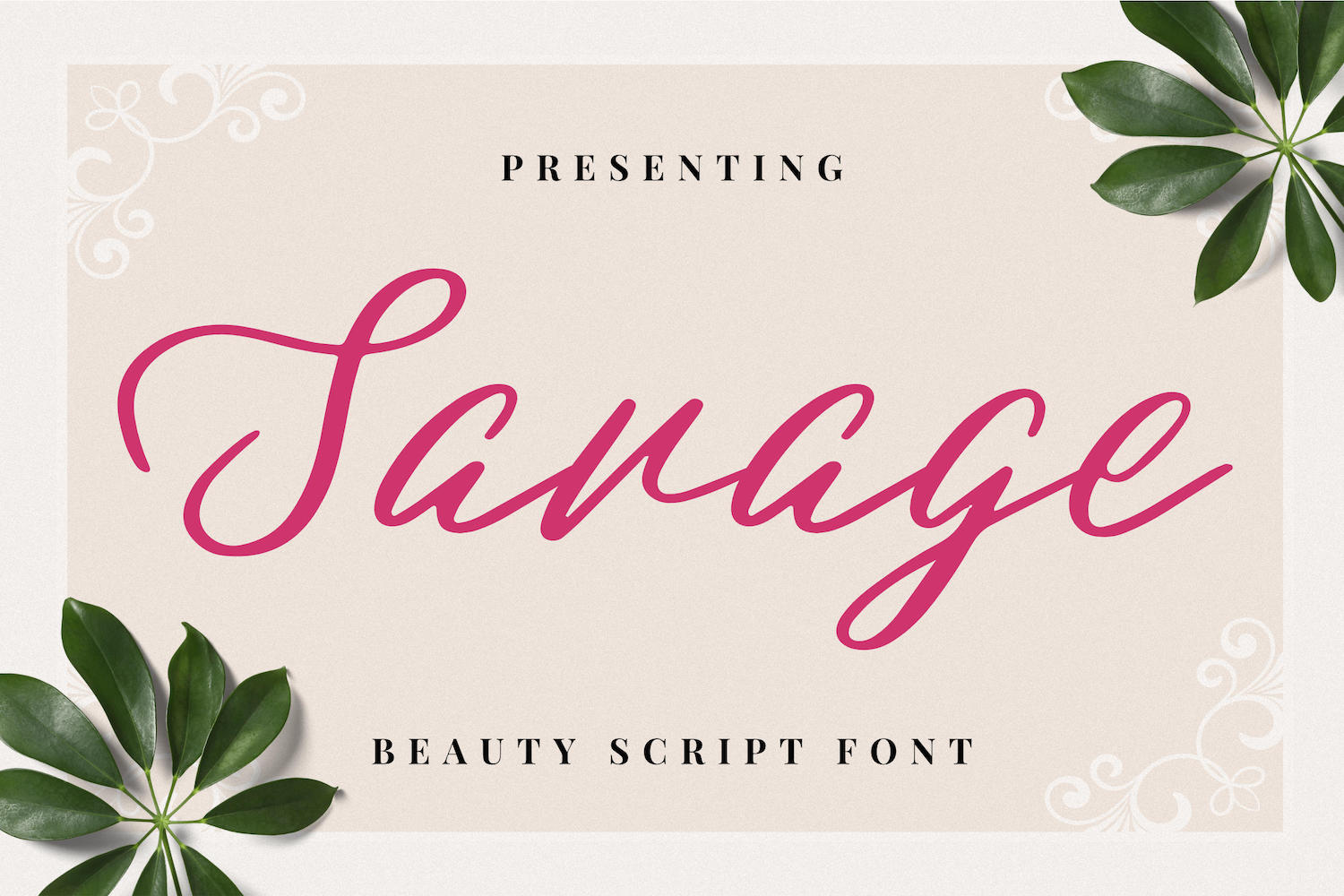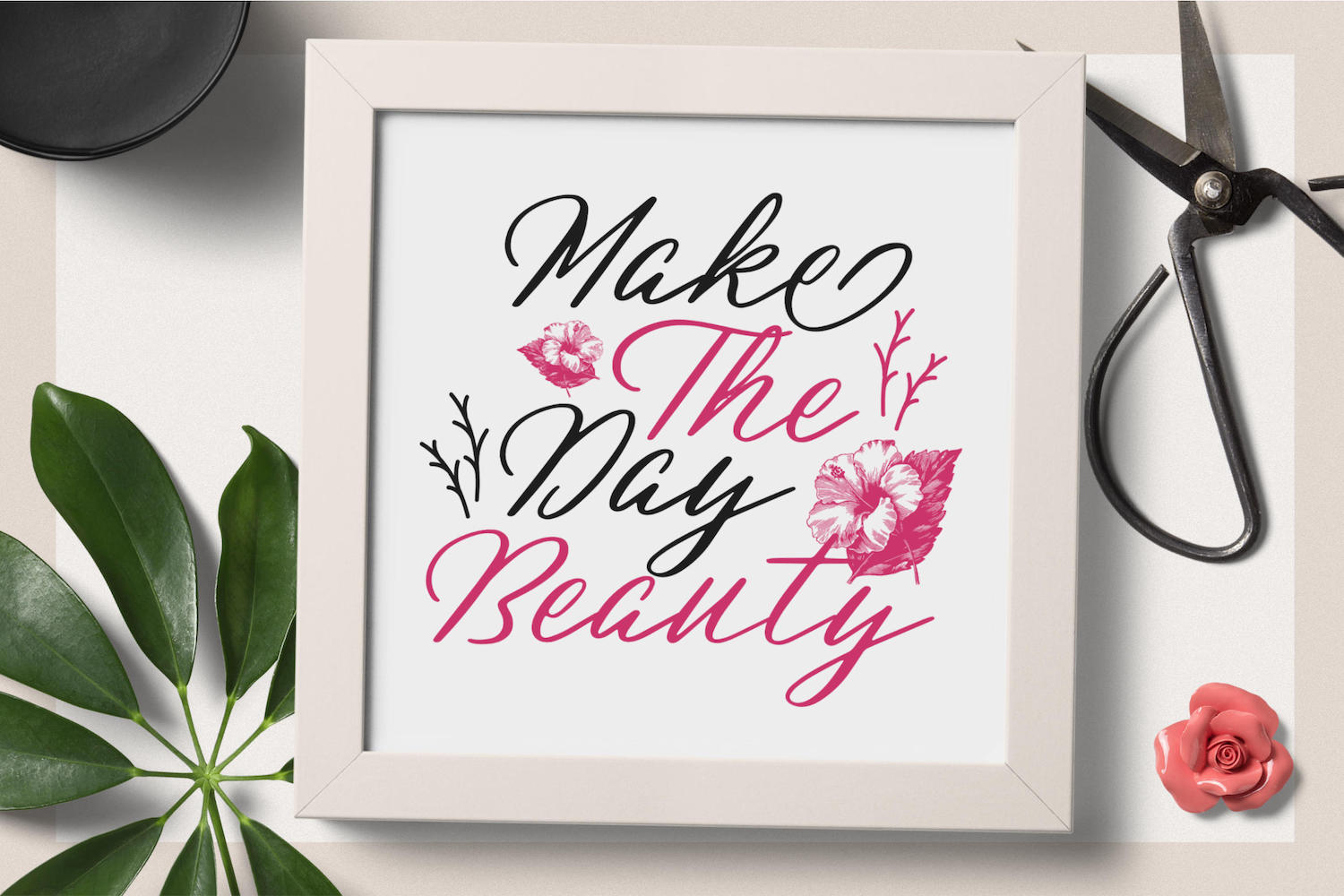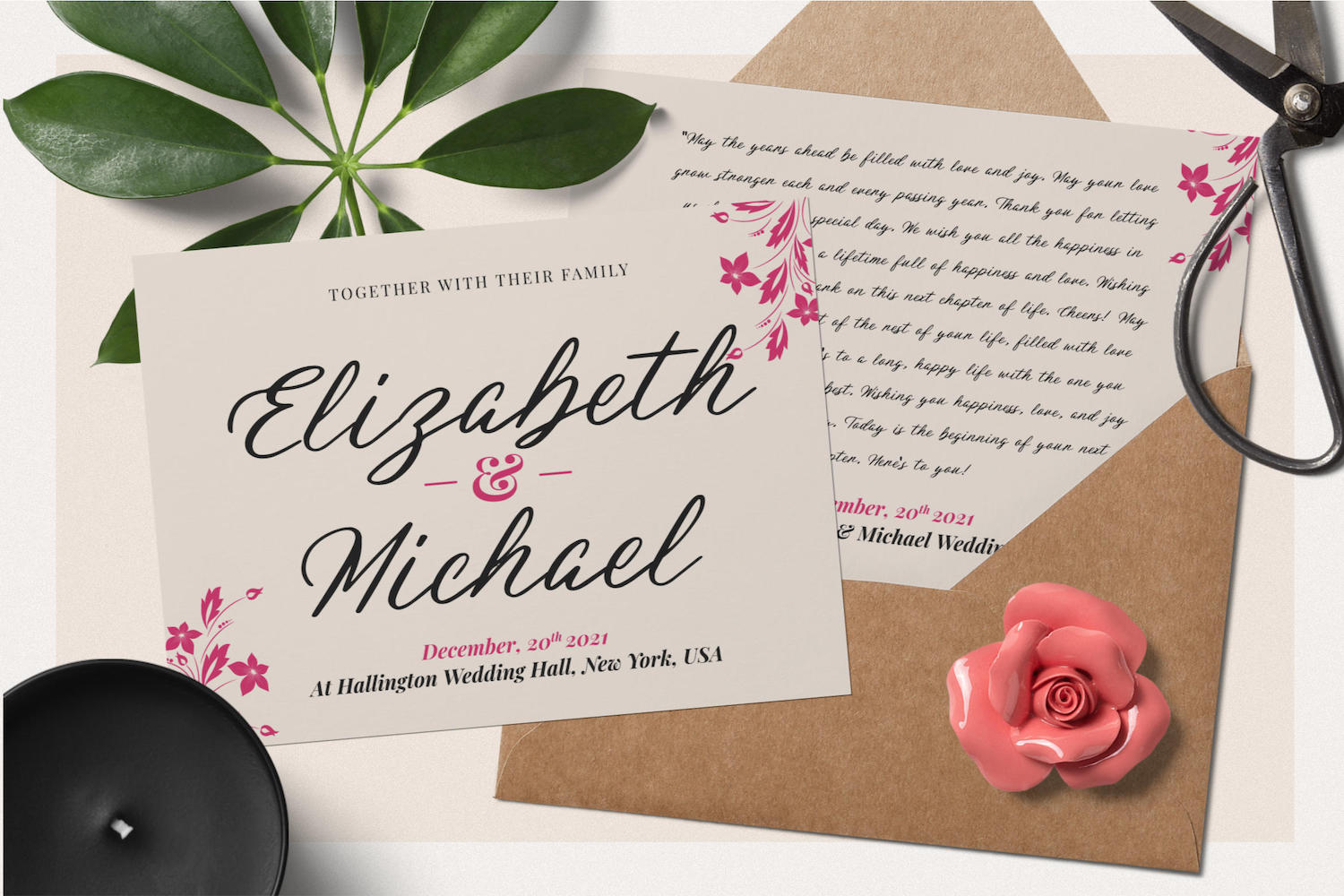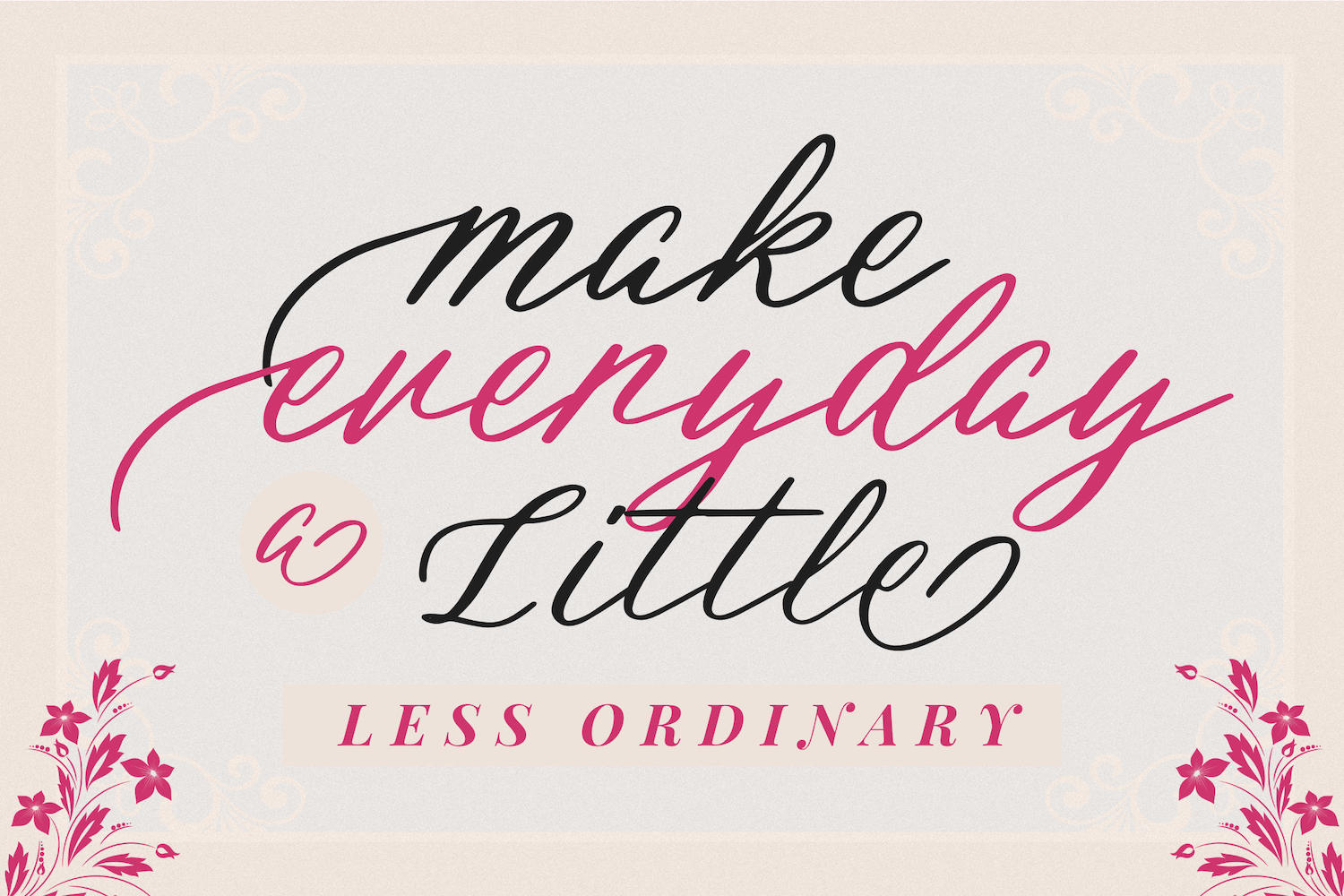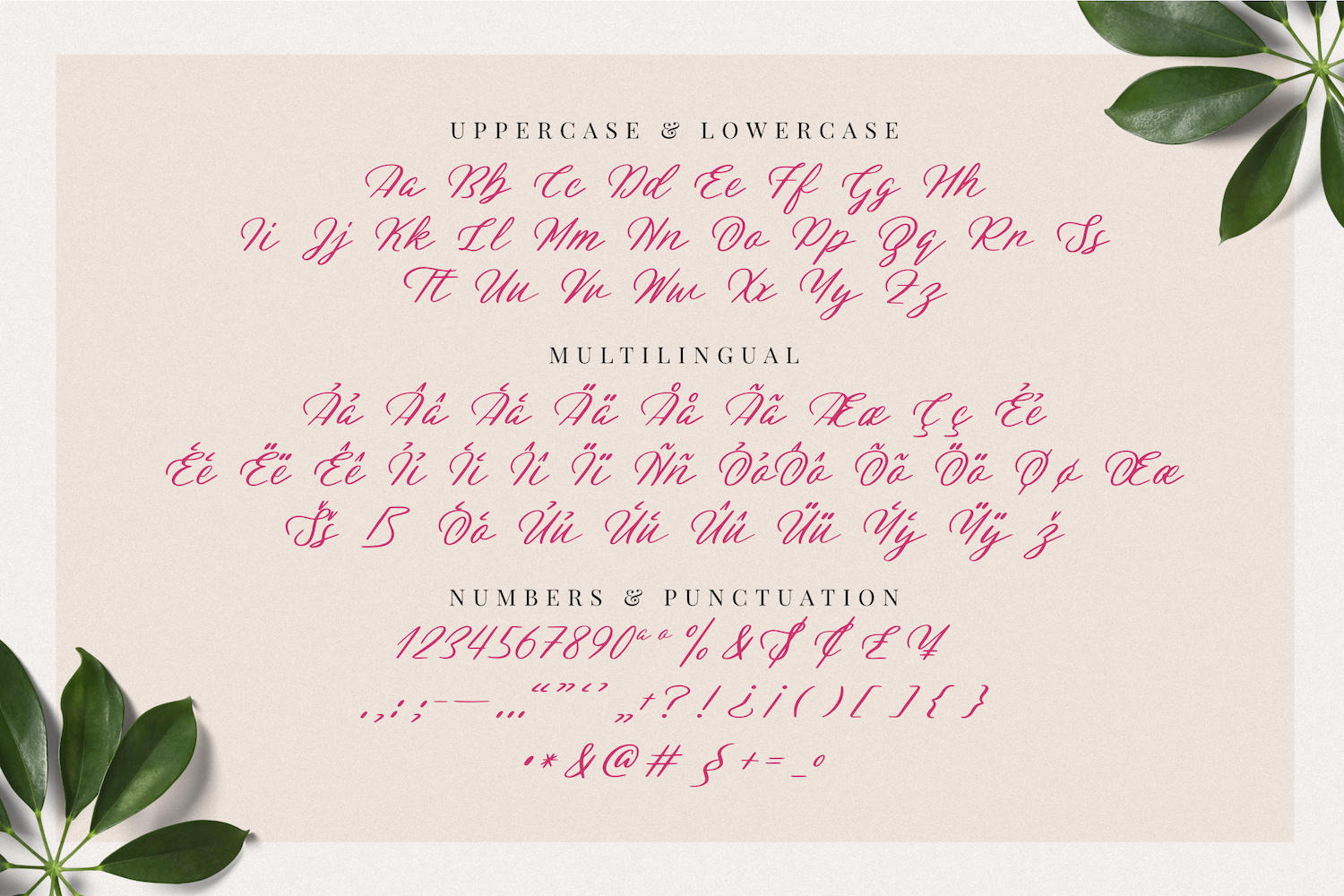
Savage is a graceful beauty script font that blends soft curves with an elegant, handwritten flow. Designed with femininity and fluidity in mind, its smooth, calligraphic strokes evoke a romantic charm perfect for wedding invitations, skincare packaging, boutique branding, or heartfelt quotes. The font offers a luxurious yet approachable feel, capturing both sophistication and warmth in every character.
With full multilingual support, stylistic alternates, and a complete set of punctuation and numerals, Savage brings versatility to every creative project. Whether you’re crafting branding assets or elegant stationery, this script font delivers a polished, refined aesthetic ideal for those who appreciate both beauty and clarity in typography.
Savage